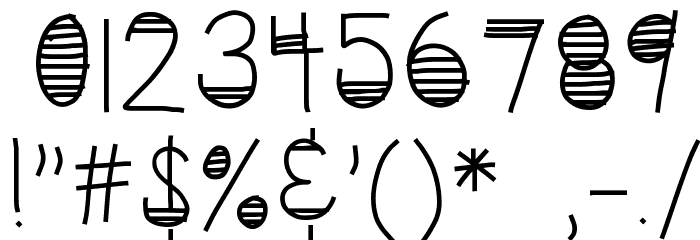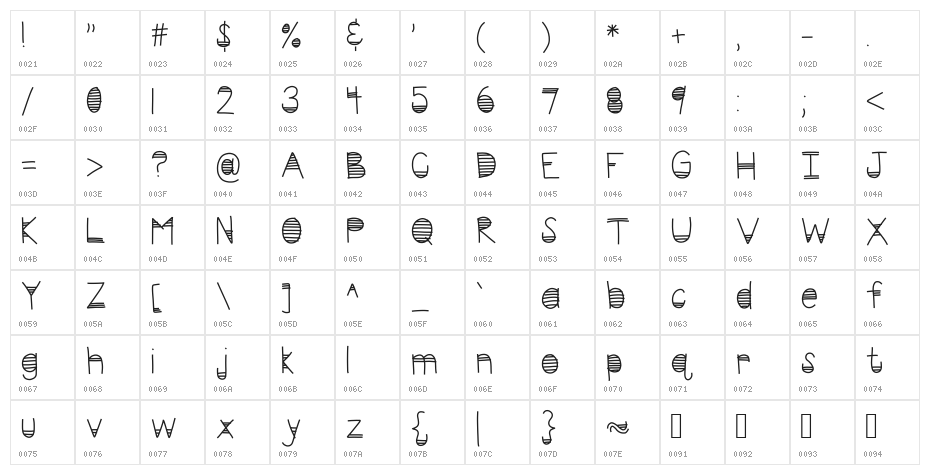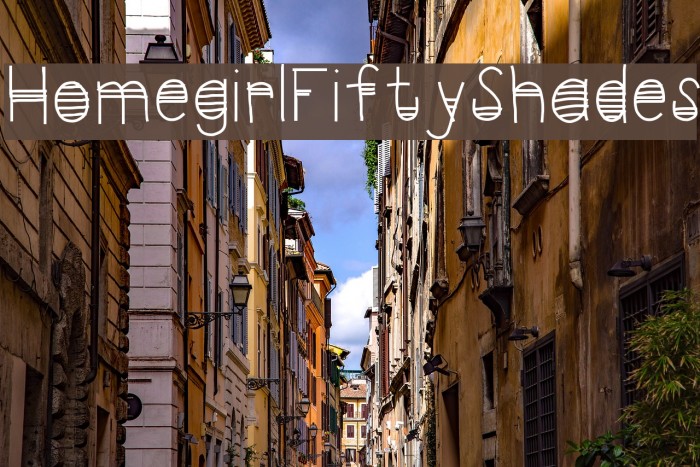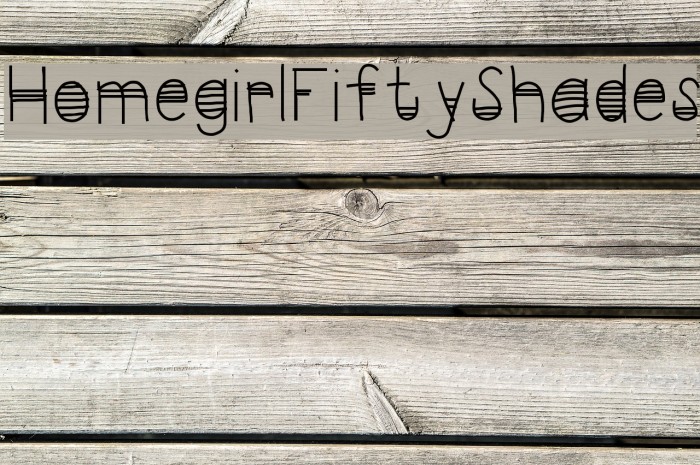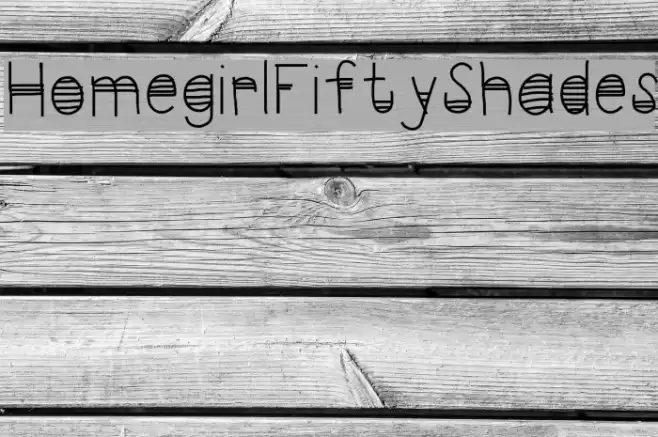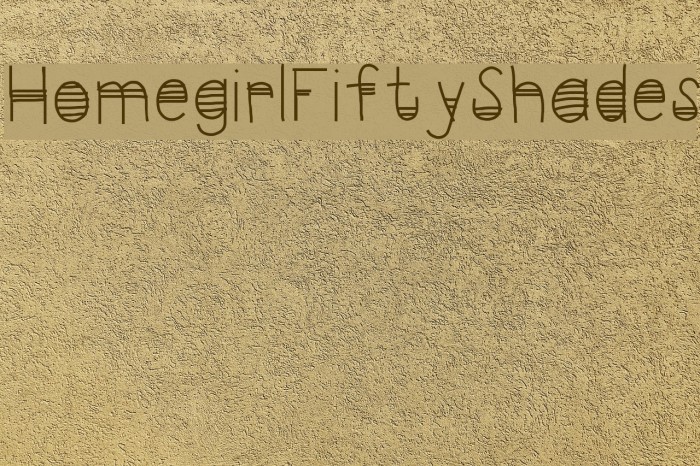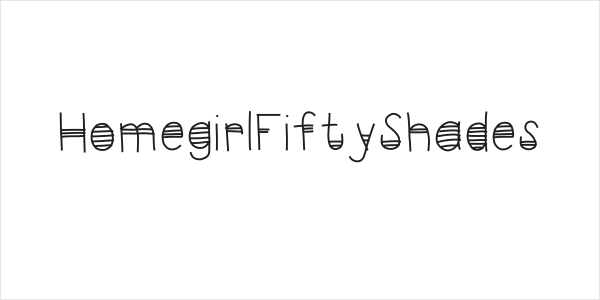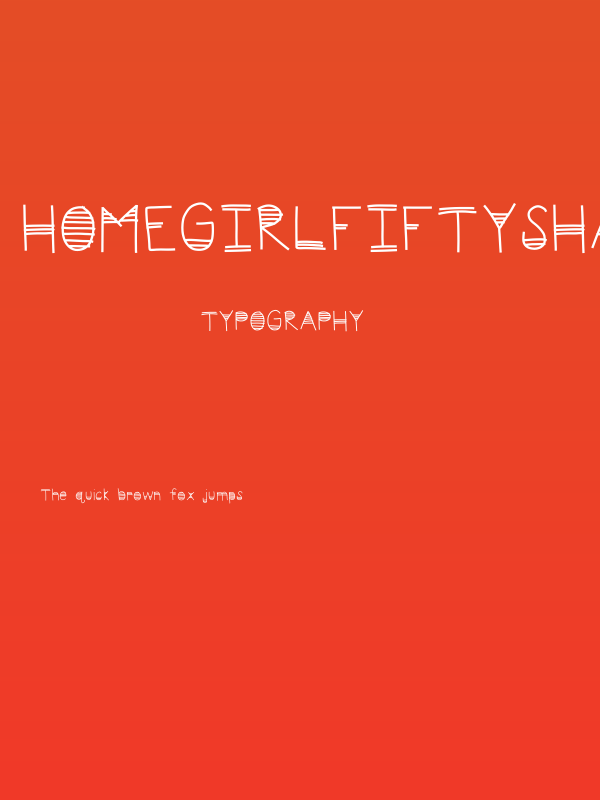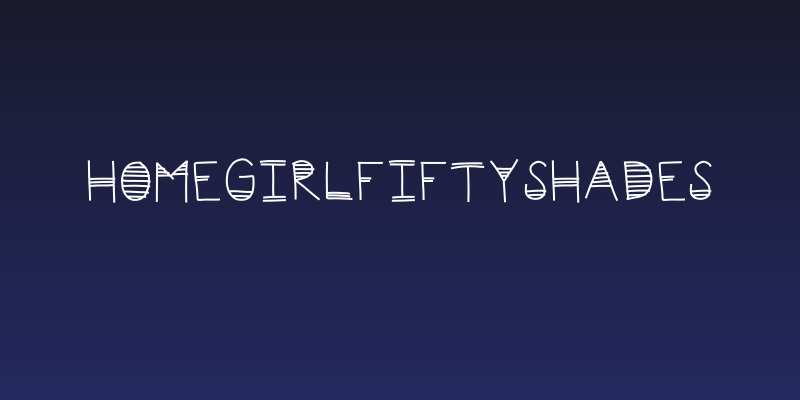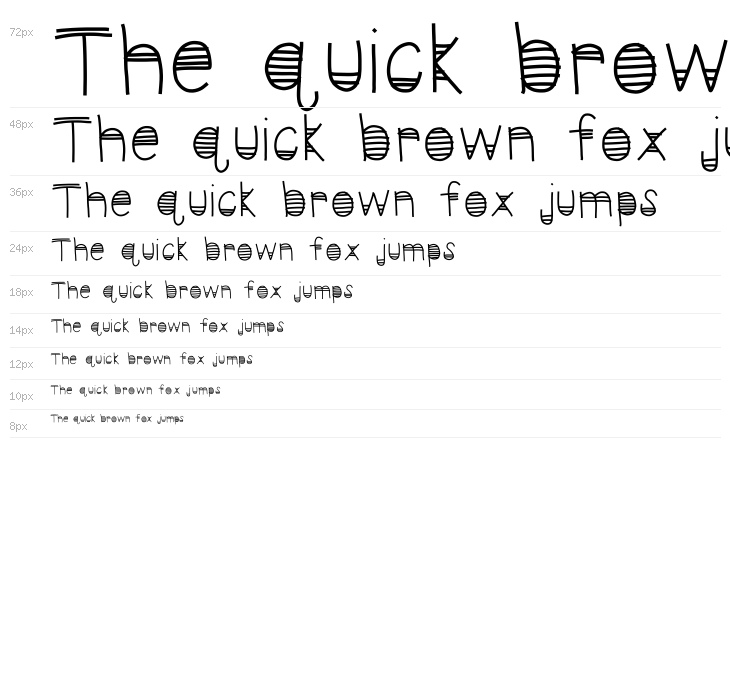
HomegirlFiftyShades Font
HomegirlFiftyShades Description
This font features a playful and quirky design with a hand-drawn aesthetic. The letters are characterized by a combination of solid and striped patterns, giving them a unique and dynamic appearance. The uppercase letters are bold and slightly irregular, while the lowercase letters maintain a consistent style with a whimsical touch. The numerals and special characters follow the same playful theme, making this font ideal for creative and informal projects. The overall look is both modern and artistic, suitable for designs that aim to stand out with a fun and engaging vibe.
| Overall Style | Playful, Artistic |
| Proposed Projects | Ideal for children's books, creative posters, playful branding, and artistic invitations. |